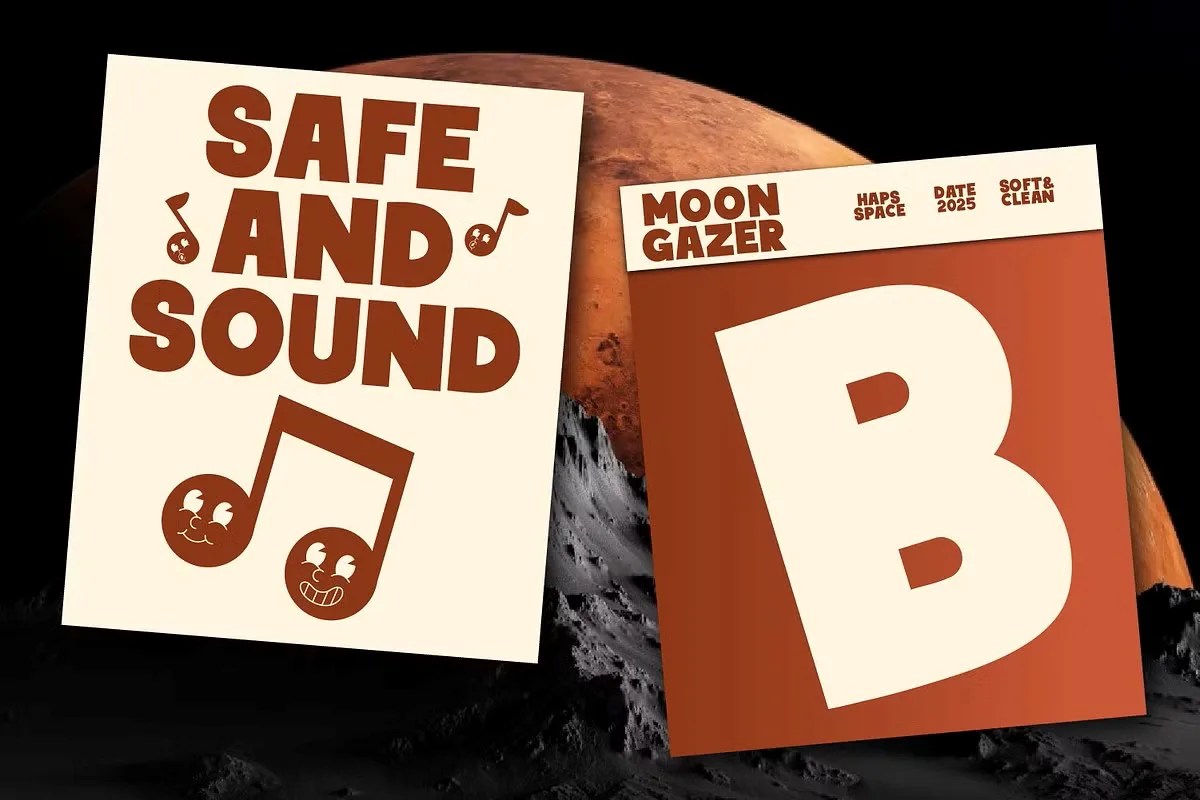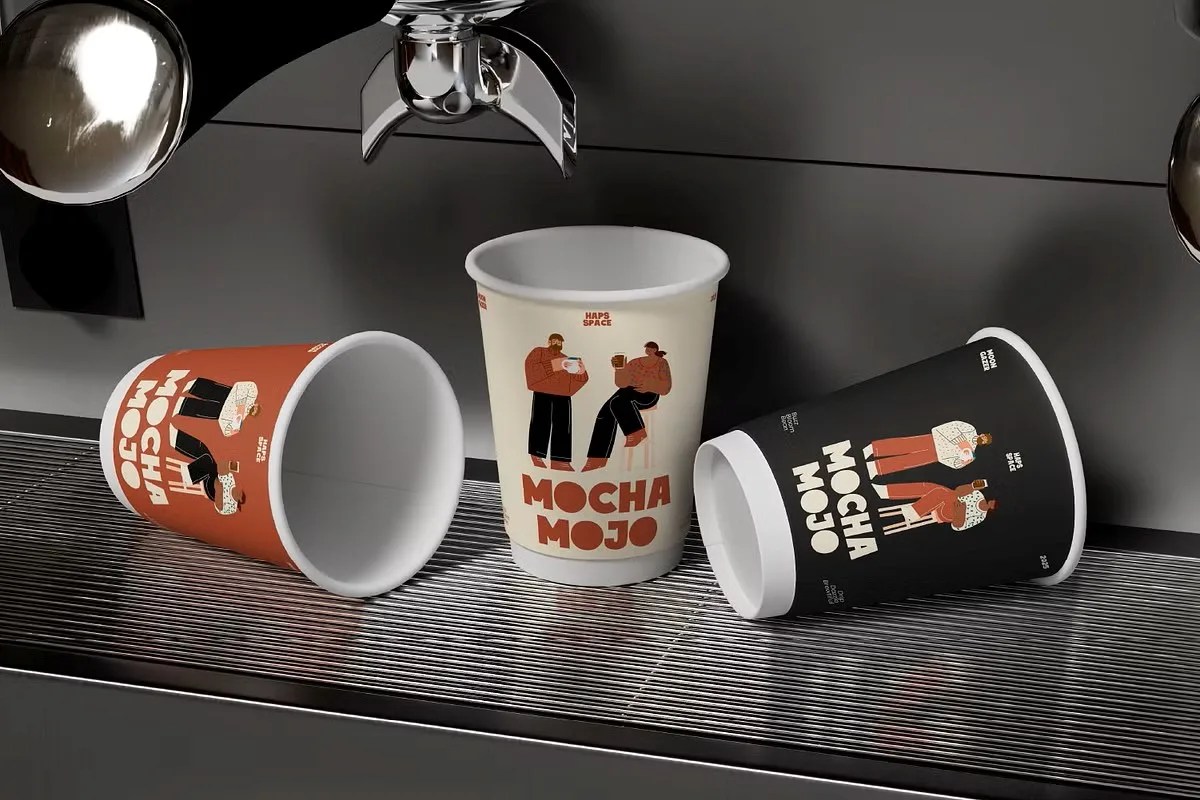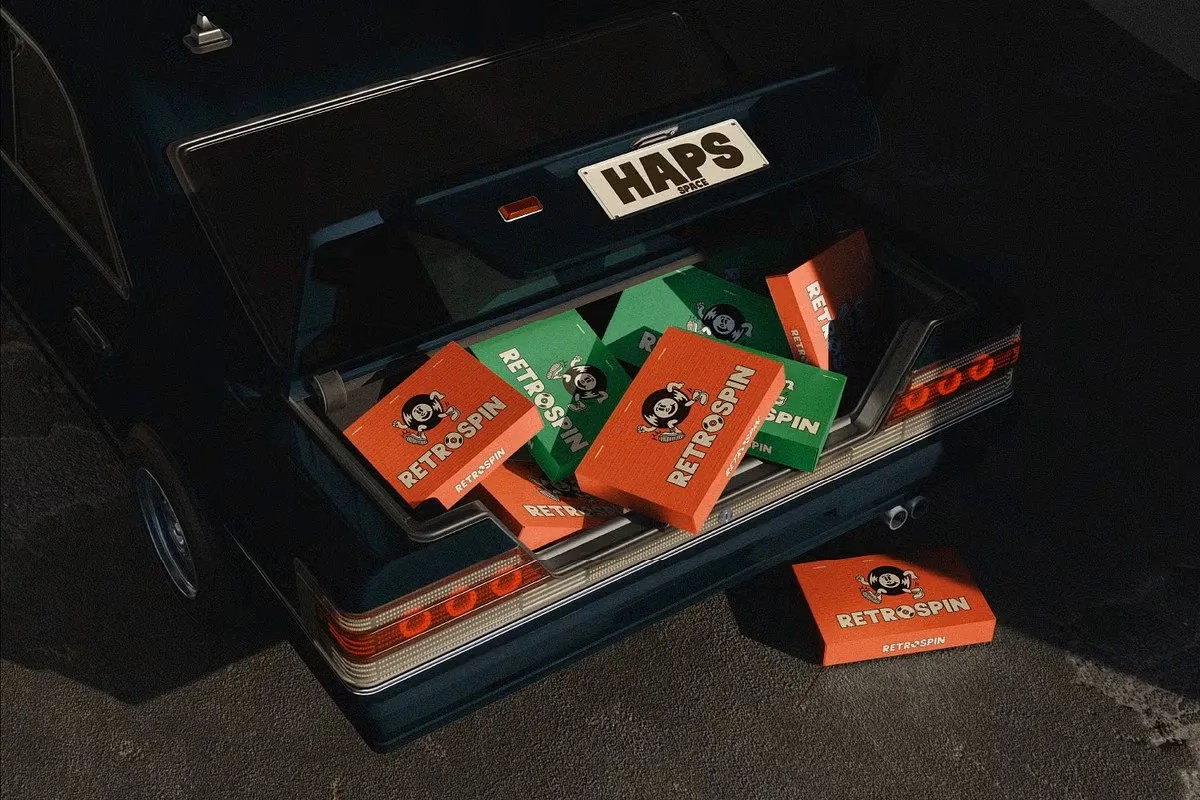
Moongazer by Haps Space. This is a clean and atmospheric minimalist space font. Haps Space designed it to capture the quiet wonder of the night sky. The font uses clean lines and open, airy forms. This approach gives your text a feeling of weightlessness and exceptional clarity. Moongazer is perfect for projects that need a touch of cosmic elegance and futuristic simplicity.
This font provides the perfect launchpad for your creative ideas. Specifically, its clean aesthetic works beautifully for technology and science-related branding. It communicates intelligence and a forward-thinking vision. Furthermore, this minimalist space font is an excellent choice for posters or social media graphics about astronomy and space exploration. Designers will also find it invaluable for user interfaces that require a clean, futuristic, and highly legible typeface. It helps create an immersive and uncluttered user experience.
• Clean and minimalist space-themed style
• Features thin, monoline letterforms
• Ideal for sci-fi, tech, and astronomy themes
• Provides a light and atmospheric feel
Moongazer